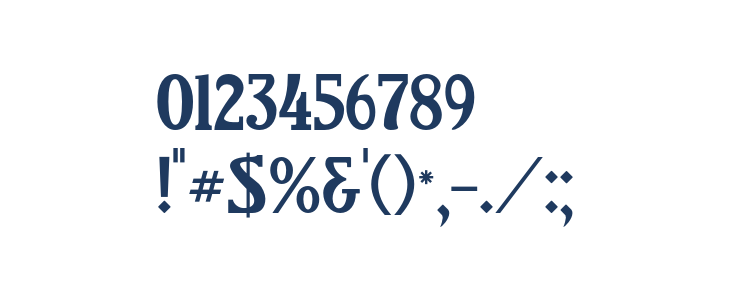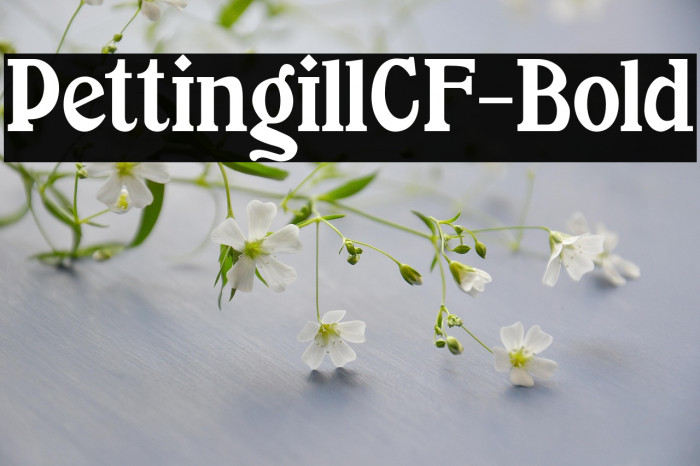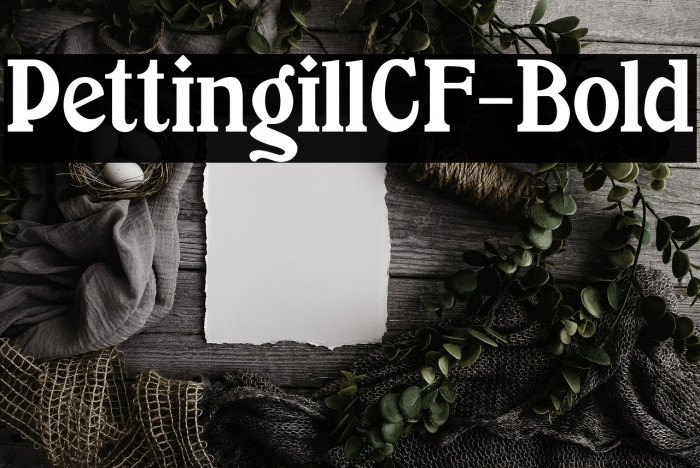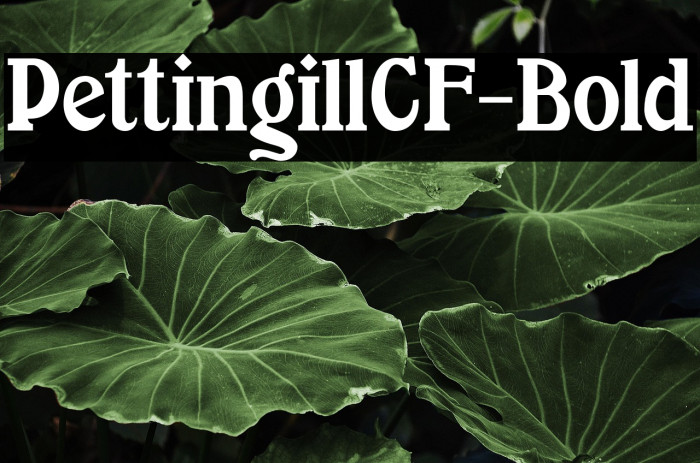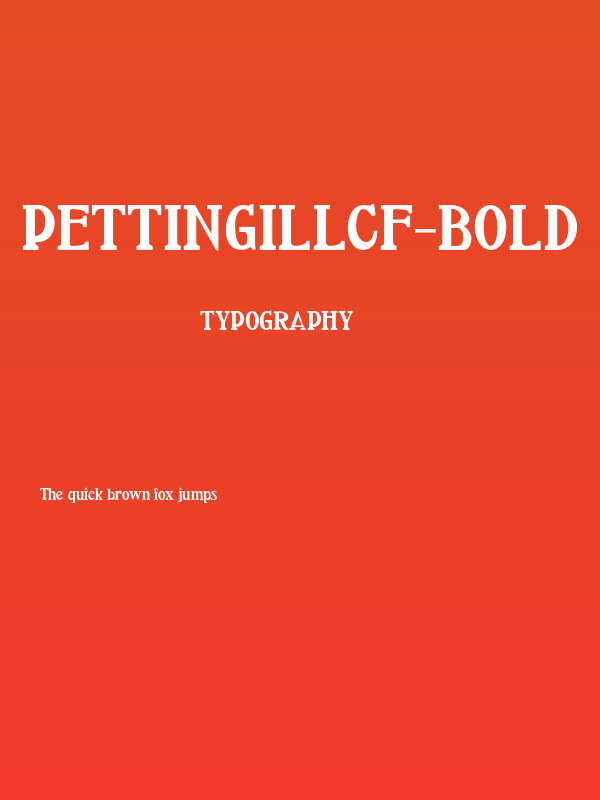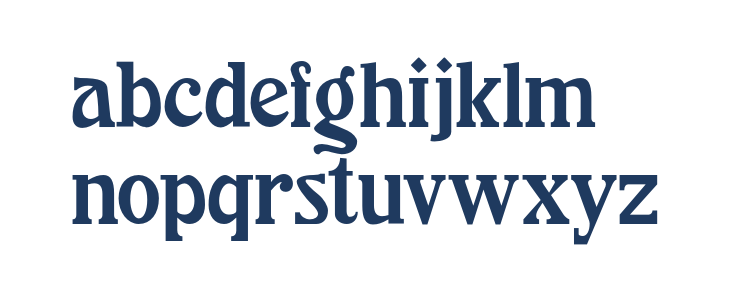
PettingillCF-Bold Font
PettingillCF-Bold Description
This font features a bold and assertive style with strong, thick strokes that convey a sense of authority and confidence. The serifs are pronounced, adding a classic touch to the overall design. The uppercase letters are robust and commanding, while the lowercase letters maintain a consistent weight, ensuring readability. The numerals are clear and distinct, making them suitable for various applications. Special characters are well-defined, enhancing the font's versatility. The overall design is balanced, with a slight vintage feel, making it ideal for projects that require a bold statement.